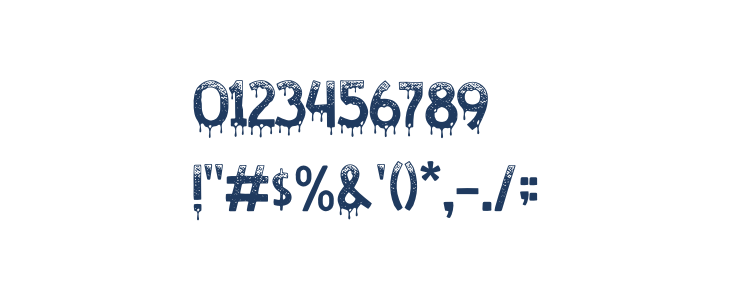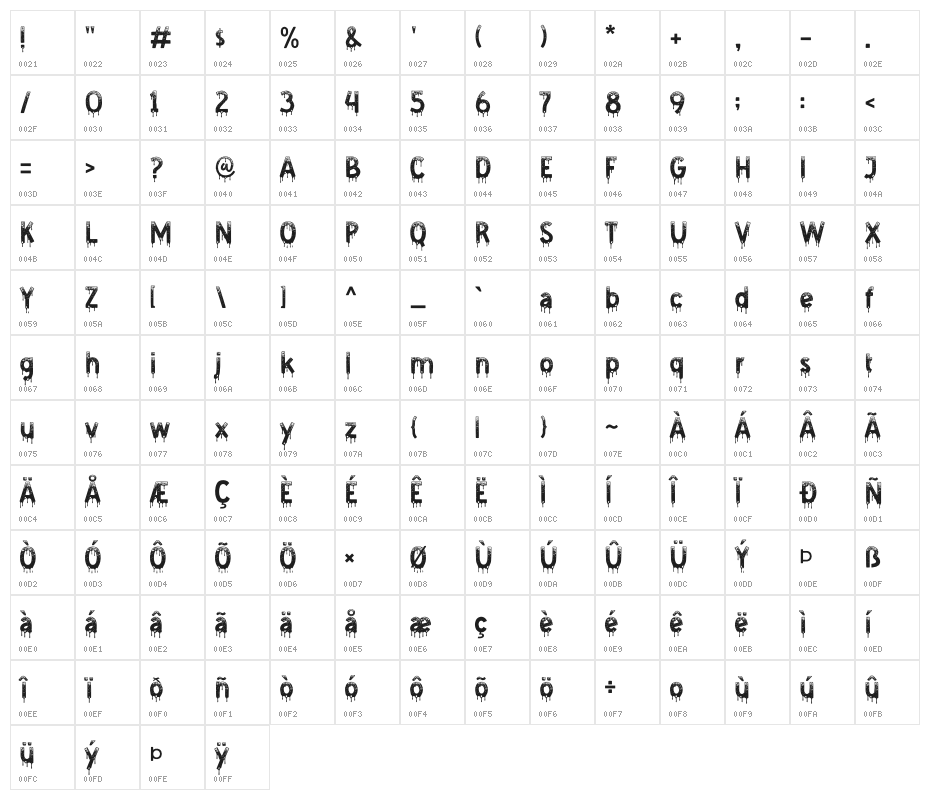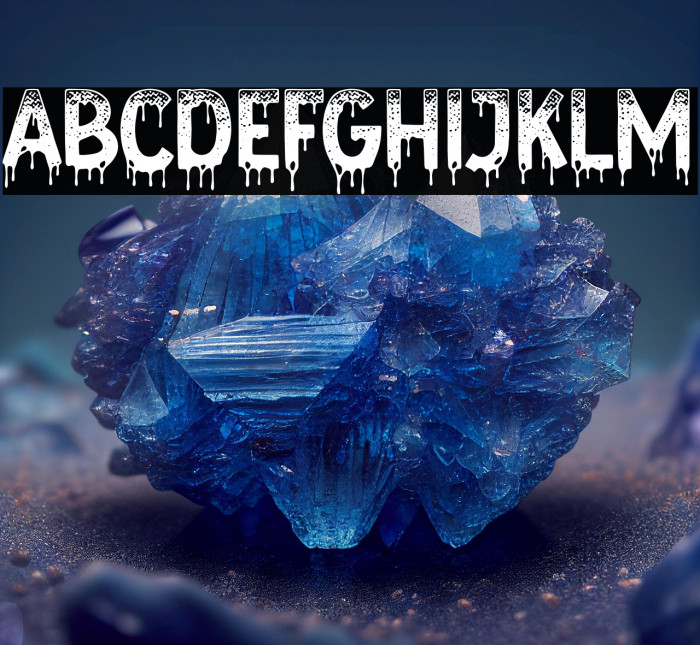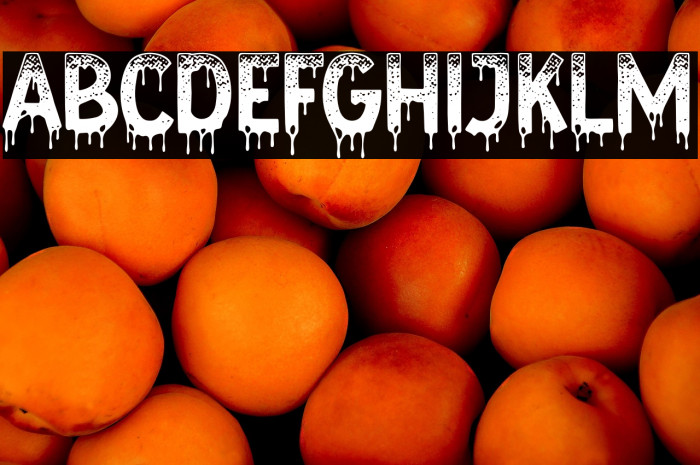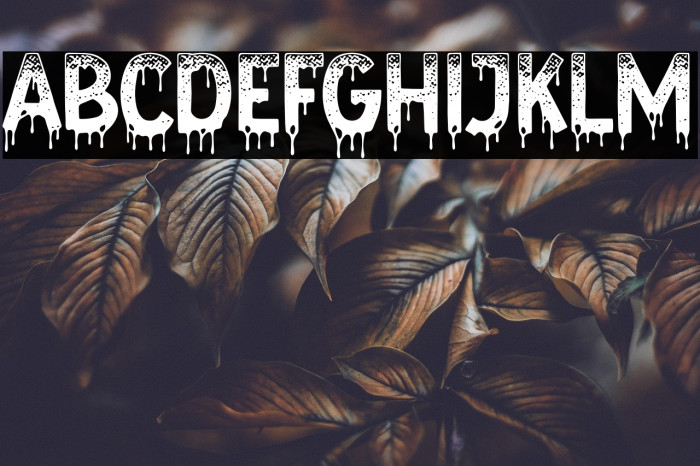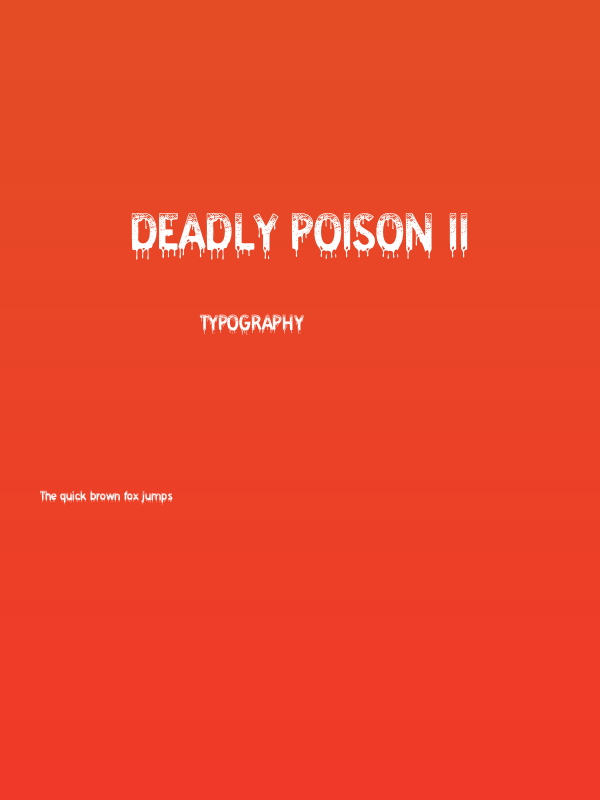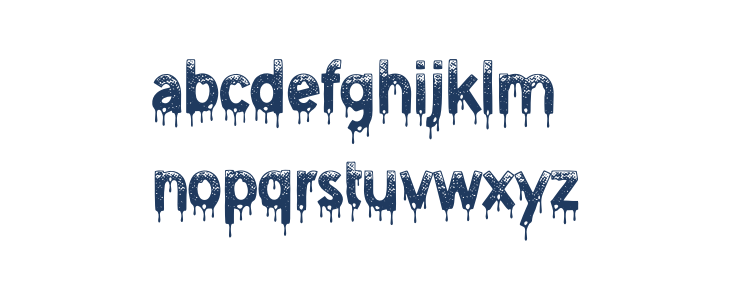
DEADLY POISON II Font
DEADLY POISON II Description
This font features a unique and eerie design, characterized by its dripping effect that mimics the appearance of melting or oozing liquid. Each letter is bold and substantial, with a textured surface that adds depth and intrigue. The uppercase and lowercase letters maintain a consistent style, with the uppercase being slightly more pronounced. The numbers and special characters follow the same dripping motif, ensuring a cohesive look across all glyphs. This font is perfect for creating a spooky or horror-themed atmosphere, making it ideal for Halloween events, horror movie posters, or any project that requires a chilling aesthetic.